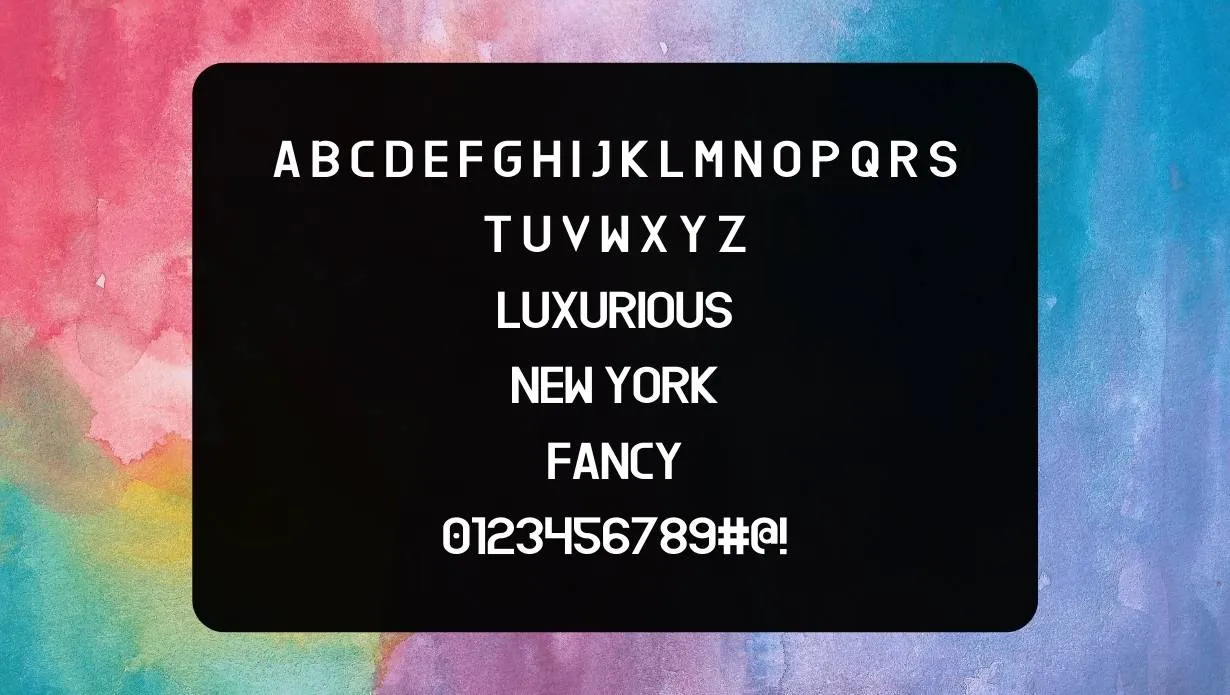
The Begal Font belongs to the sans serif texture family category with a unique and attractive texture look. It was created by a well-known graphic designer Dusan Jaukoxic with both file formats OTF and TTF. You can construct Begal logos with FlamingText. These logo designs sport national colors.
You can pair this wonderful font with work sans font and create fantastic projects. It comes in various types of characters like uppercase letters, numeric, symbols, and lowercase letters.
You can use the Begal texture for different kinds of styles and projects. This font is a suitable choice for creating logo designs, posters, banners, social media posts, and many other purposes.
This unique texture is perfect for eye-catching signs, book covers, logotypes, apparel designs, headers, and product packaging.
It has many similar textures available on our site, but the closest font to this texture is nimbus sans font. These two fonts will make your project look more attractive to the viewers.
Is Begal Font the best font to Use?
Yes! You can use this stunning texture for different kinds of purposes. It is best for creating logo designs, posters, banners, and many other projects.
What type of font is Begal Font?
It comes in a sans serif texture family category with a unique and attractive texture look. This font is available free for your both personal and commercial designs.
Who designed the Begal Font?
It was created by a well-known graphic designer Dusan Jaukoxic with both file formats OTF and TTF.
What font is similar to Begal Font?
A similar texture to his font is made evolve sans font, and Serifa Font. Its unique and clean texture will make your project look more attractive to the viewers.